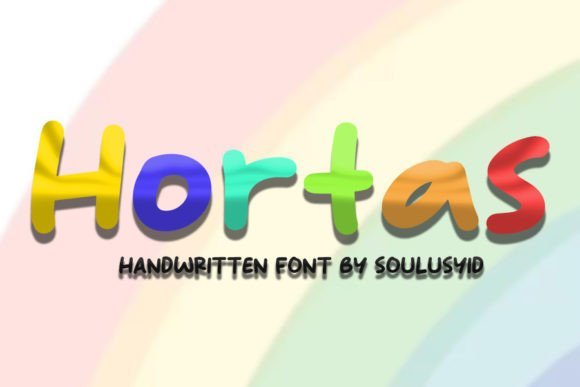
Adding a Touch of Happiness to Your Designs
Have you ever found yourself stuck in front of a blank page, struggling to come up with the perfect design to capture the essence of a special moment? We’ve all been there, but what if you had the right tools to bring your ideas to life?
Enter Hortas Font, a stylish and modern sans-serif font that’s perfect for adding a happy touch to any design. Whether you’re creating a greeting card, headline, branding, or packaging, Hortas Font is the perfect companion to help you convey your message with elegance and sophistication. As a designer, you understand the importance of choosing the right font to elevate your work and make it truly memorable.
With Hortas Font, you’ll be able to create designs that not only communicate your message but also evoke emotions and leave a lasting impression. Its versatility and modern feel make it an invaluable asset to any designer’s toolkit.
Hortas Font Key Features
- Unique Characteristics: The font features a unique blend of geometric and organic elements, creating a distinctive and modern aesthetic.
Hortas Font Review
Hortas Font is a beautiful, handwritten font that’s perfect for creating eye-catching designs. ✨ Its unique blend of elegance and playfulness makes it an excellent choice for branding, invitations, and other creative projects.
- The font’s varying line widths and subtle texture add a touch of authenticity to the design, giving it a more handmade feel. ✨
- Hortas Font’s large character set and language support make it a versatile option for designers working on international projects. ✨
- The font’s bold and italic styles offer a nice contrast to the regular weight, allowing designers to add emphasis and visual interest to their designs. ✨
However, there are some limitations to consider: ⚠️ The font’s readability can be a concern at smaller font sizes, and the ligatures can be inconsistent in certain combinations.
Overall, I’m impressed with Hortas Font’s unique charm and versatility. While it may not be suitable for every project, it’s an excellent choice for designers looking to add a touch of personality to their designs. With a little creativity and careful typography, Hortas Font can help elevate your designs to the next level.
Tips for Getting the Most Out of Hortas Font
To get the most out of Hortas Font, use it in combination with bold and italic styles to create visual interest.
Use Hortas Font for headings and titles, and pair it with a clean sans-serif font for body text.
Hortas Font is ideal for:
Creating elegant and sophisticated designs.
Adding a touch of sophistication to business cards, letterheads, and other marketing materials.
Designing luxury packaging and branding materials.